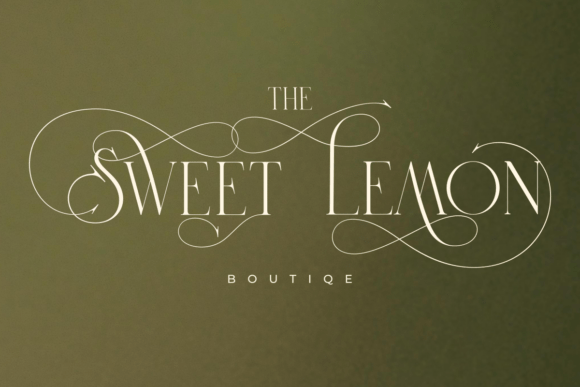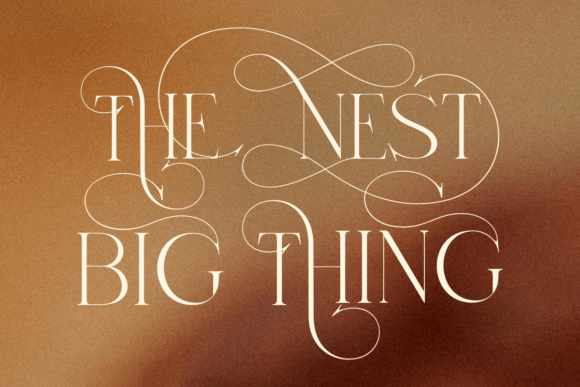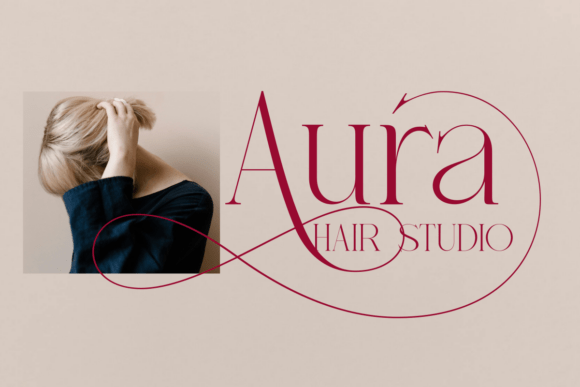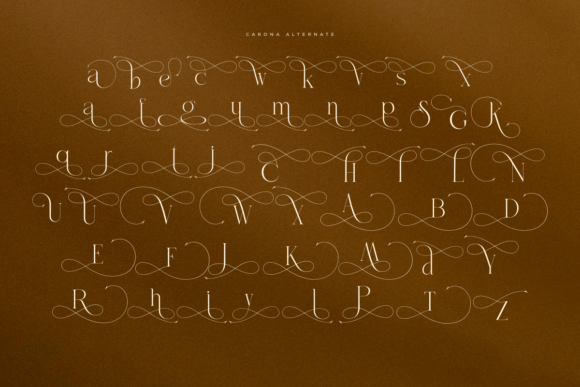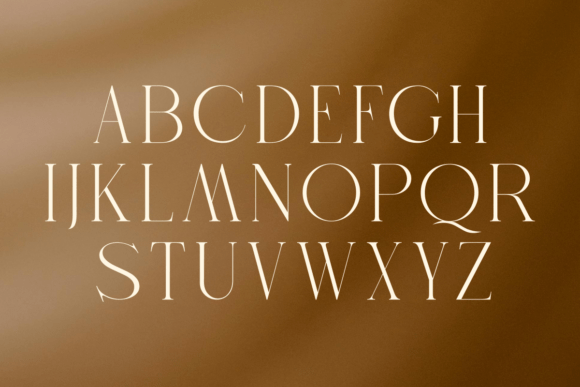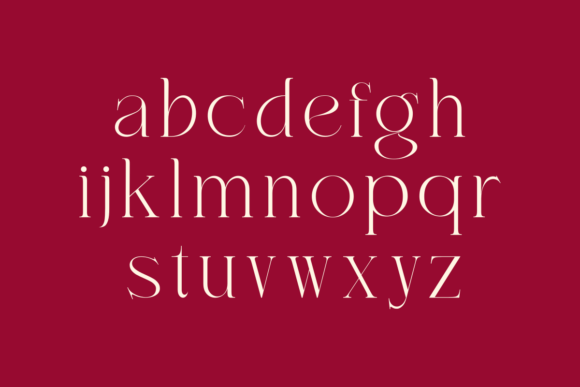
Introducing Carona Font: Elevate Your Designs with Elegance and Sophistication
In the world of typography, a font can make or break the aesthetic of a design. For those seeking a classy and distinguished look, Carona Font is an excellent choice. This elegant serif font seamlessly blends classic sophistication with a modern touch, making it perfect for a variety of applications, from editorials and branding to invitations and packaging designs.
The Characteristics of Carona Font
Carona Font boasts refined letterforms with a notable contrast between thick and thin strokes. This characteristic not only brings a sense of luxury to your designs but also ensures high legibility, making it suitable for both headlines and body text. The elegant serifs add a touch of tradition, while the overall design maintains a contemporary feel, appealing to a wide range of design preferences.
Key Features of Carona Font
- Elegant Serif Design: Carona’s serif design adds a classic touch to any project, providing a sophisticated look that’s hard to achieve with sans-serif fonts.
- High Legibility: Despite its elegant appearance, Carona Font remains highly legible, even at smaller sizes, making it versatile for various design applications.
- Refined Stroke Contrast: The refined contrast between thick and thin strokes in Carona Font adds depth and a sense of luxury, elevating the overall appearance of your designs.
- Modern yet Classic: Carona strikes the perfect balance between modern design principles and classic typography, making it suitable for designers looking for a font that can bridge different styles.
Use Cases for Carona Font
Carona Font’s versatility makes it an excellent choice for a variety of design projects. Here are some of the best use cases:
- Editorials: Add a touch of elegance to your magazine, newspaper, or digital publication with Carona Font, making your content stand out with its classic yet modern appeal.
- Branding: For brands aiming to convey sophistication and luxury, Carona Font can be a valuable asset, providing a distinctive look that sets them apart from competitors.
- Invitations: Whether it’s a wedding invitation, corporate event, or product launch, Carona Font can help set the tone for a classy and memorable occasion.
- Packaging Designs: Elevate your product packaging with Carona Font, adding a level of sophistication that can appeal to customers looking for premium products.
Tips for Using Carona Font Effectively
- Pair with Complementary Fonts: While Carona Font is elegant on its own, pairing it with a simple sans-serif font for body text or headlines can create a striking contrast.
- Adjust Stroke Contrast: Depending on your design needs, adjusting the stroke contrast can help achieve the desired level of elegance or modernity.
- Consider Size and Color: The size and color of the text can significantly impact the overall look. Use Carona Font in sizes that ensure legibility while selecting colors that complement your brand or design theme.
Carona Font is a versatile and elegant serif font that can add a touch of sophistication and luxury to any design project. Its blend of classic and modern elements, along with its high legibility, makes it an excellent choice for designers and crafters looking to elevate their work. Whether you’re working on editorials, branding, invitations, or packaging designs, Carona Font is sure to bring a distinguished look that stands out.